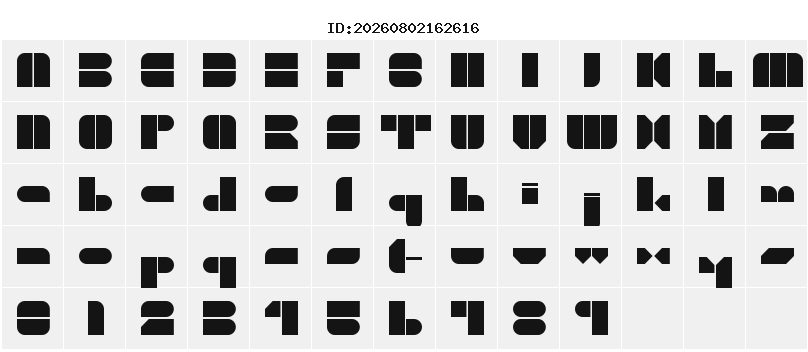
Nuss Motorsports Preview
• Font Name: Nuss Motorsports
Nuss Motorsports.ttf is a modern, elegant sans-serif font designed for ultimate readability and visual harmony. Perfect for branding, headlines, web design, and print materials.